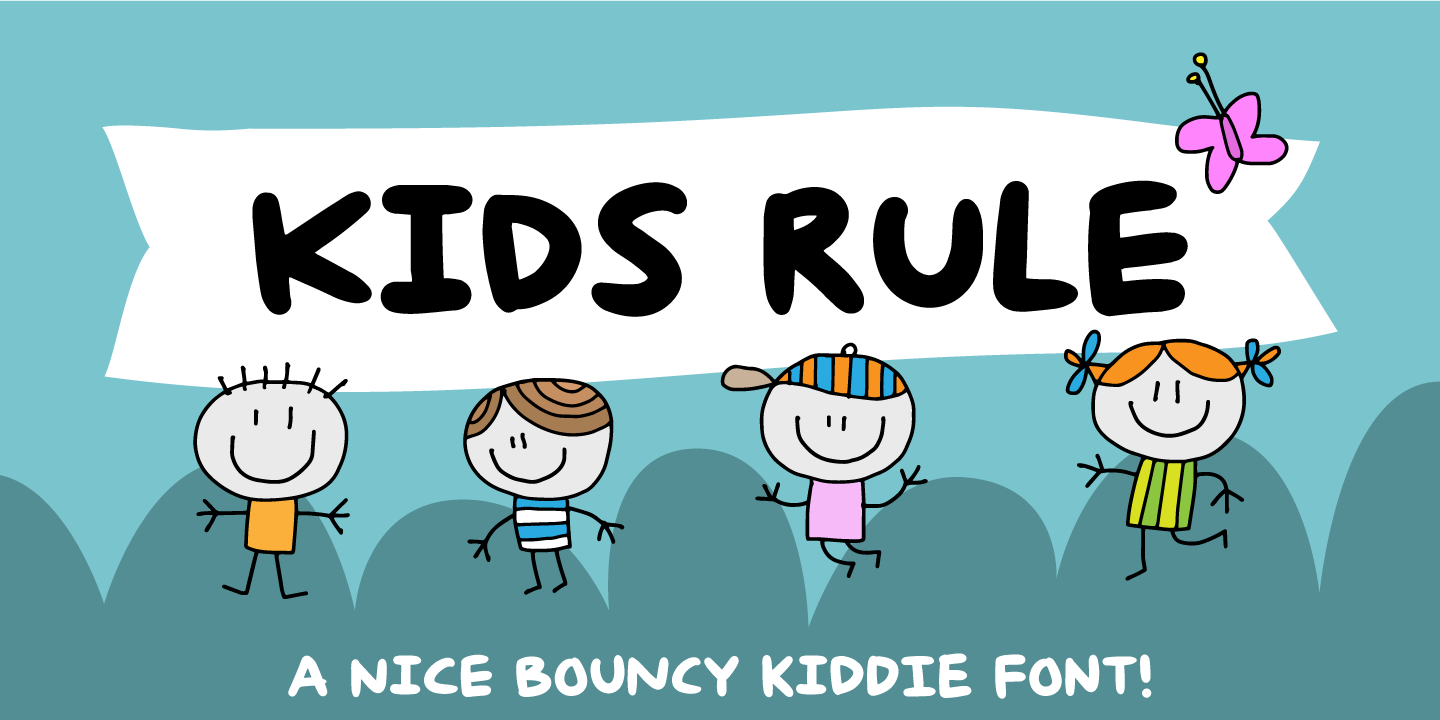
Kids Rule Font Free Download is a playful, fun, and energetic display typeface designed to capture the imagination of children and bring joy to any project. Perfect for kids' party invitations, school projects, posters, packaging, educational materials, cartoons, and branding for children’s products, this font adds a whimsical, friendly vibe to your designs. Kids Rule Font stands out with its bold, bubbly letterforms and cheerful personality.
With Kids Rule Font Free Download, you’ll receive a complete set of uppercase letters, lowercase, numbers, and essential punctuation, offering versatility for both print and digital applications. Whether you’re creating playful logos, colorful signage, or fun merchandise, this font ensures readability while adding vibrant charm and excitement.
Add fun and creativity to your projects with Kids Rule Font Free Download. Its lively, kid-friendly style makes it a perfect choice for designs that need joy, approachability, and playful energy.